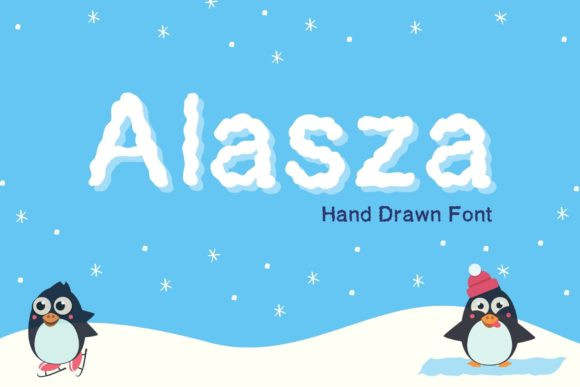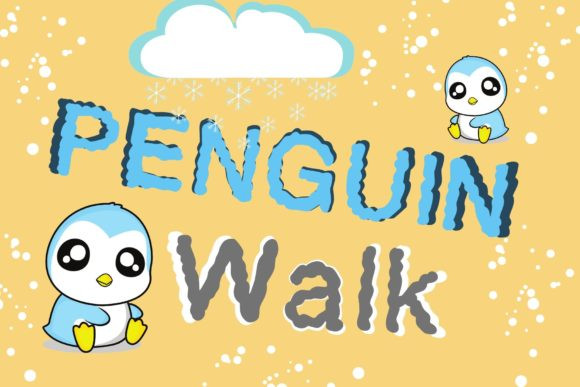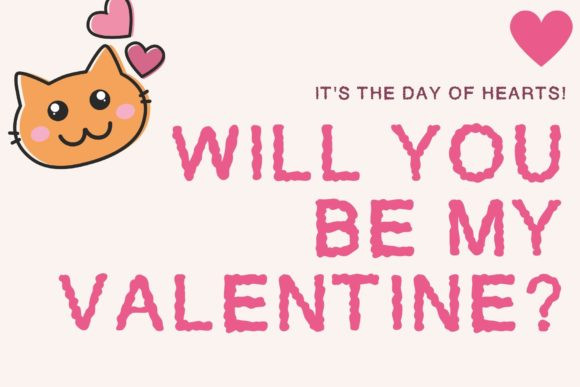
Alasza Font
Alasza is a cute and fun display  font with a playful feel. Its natural and unique style makes it incredibly fitting to a large pool of designs. This font is perfect for every project, display craft, wedding invitation, or your blog, kids project, teaching, education project, and more.